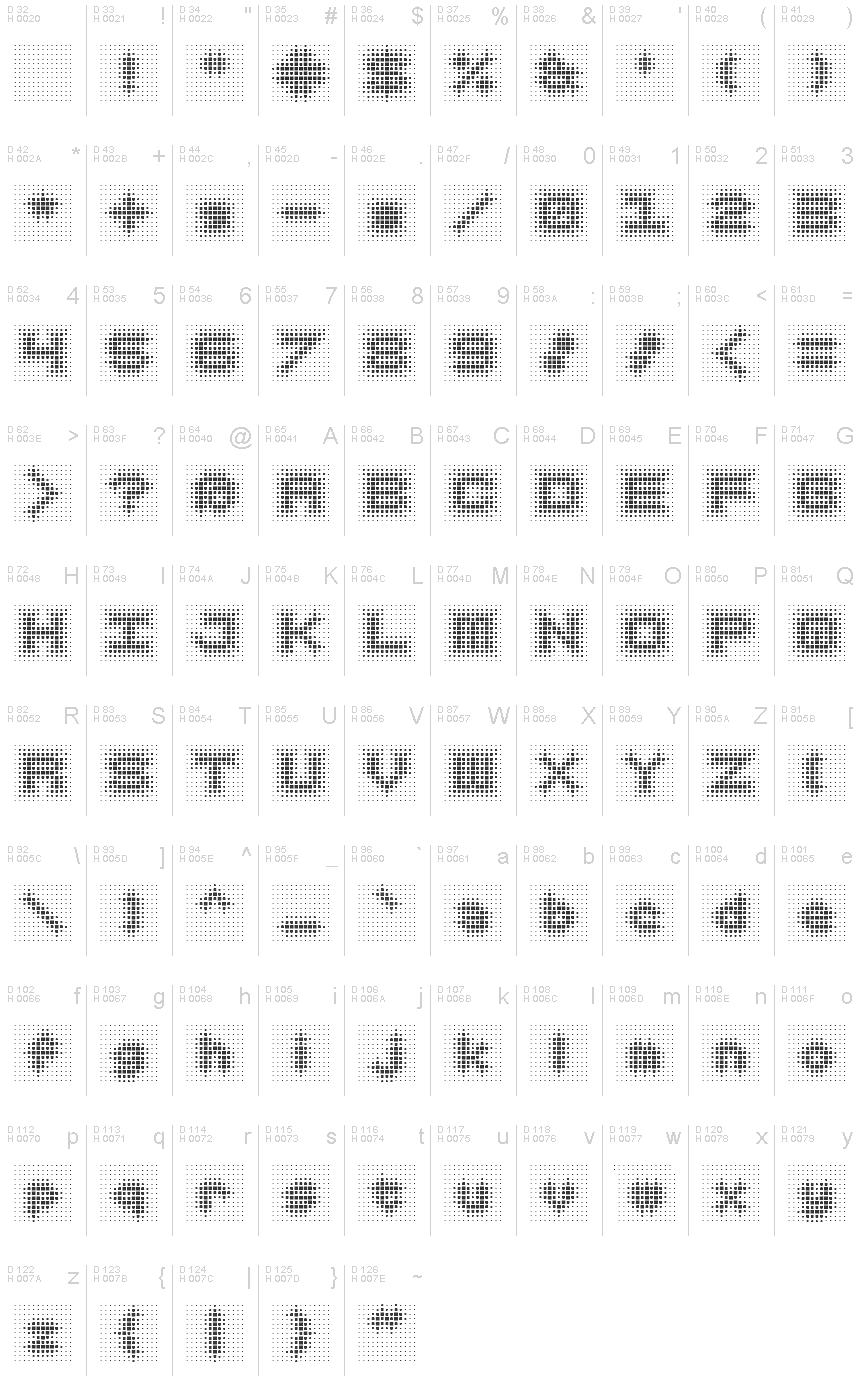
Fuzzy Logic Regular
Designer description: Halftone patterns on a square grid. Gives me a "crime lab" feeling for some reason. Maybe it's the resemblance to frosted glass...